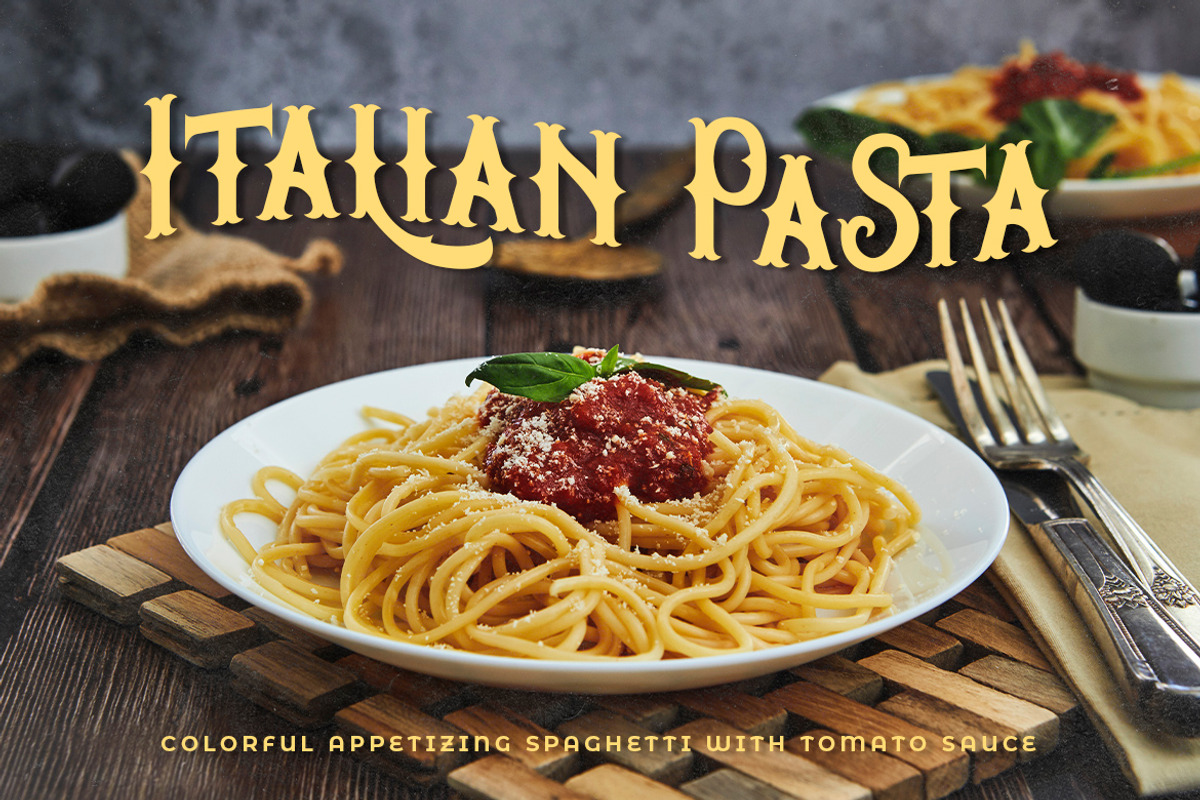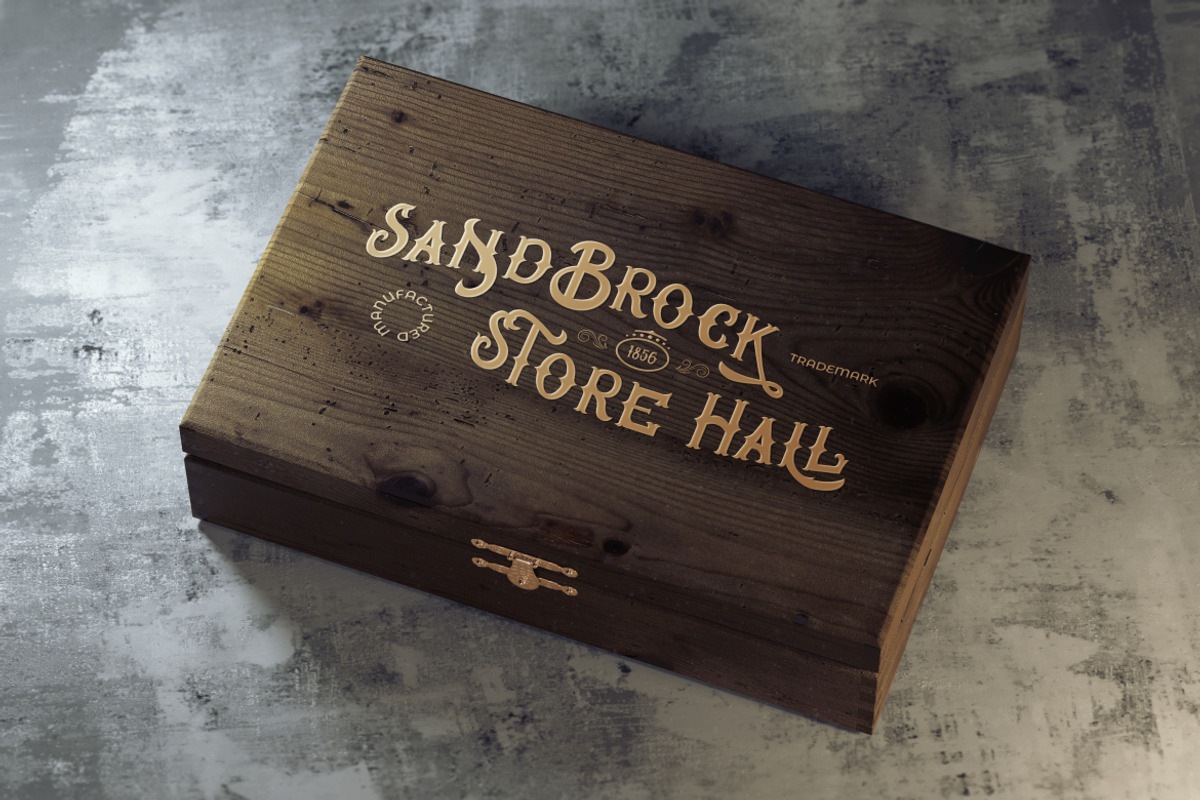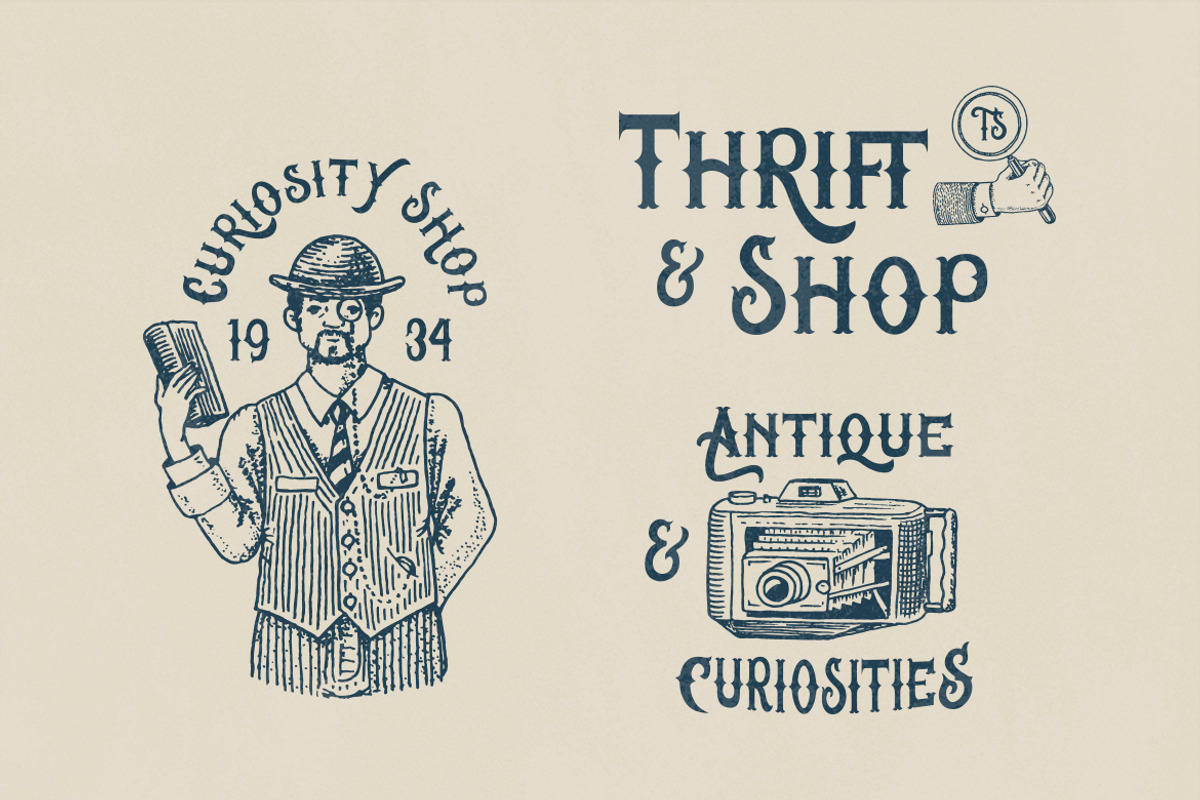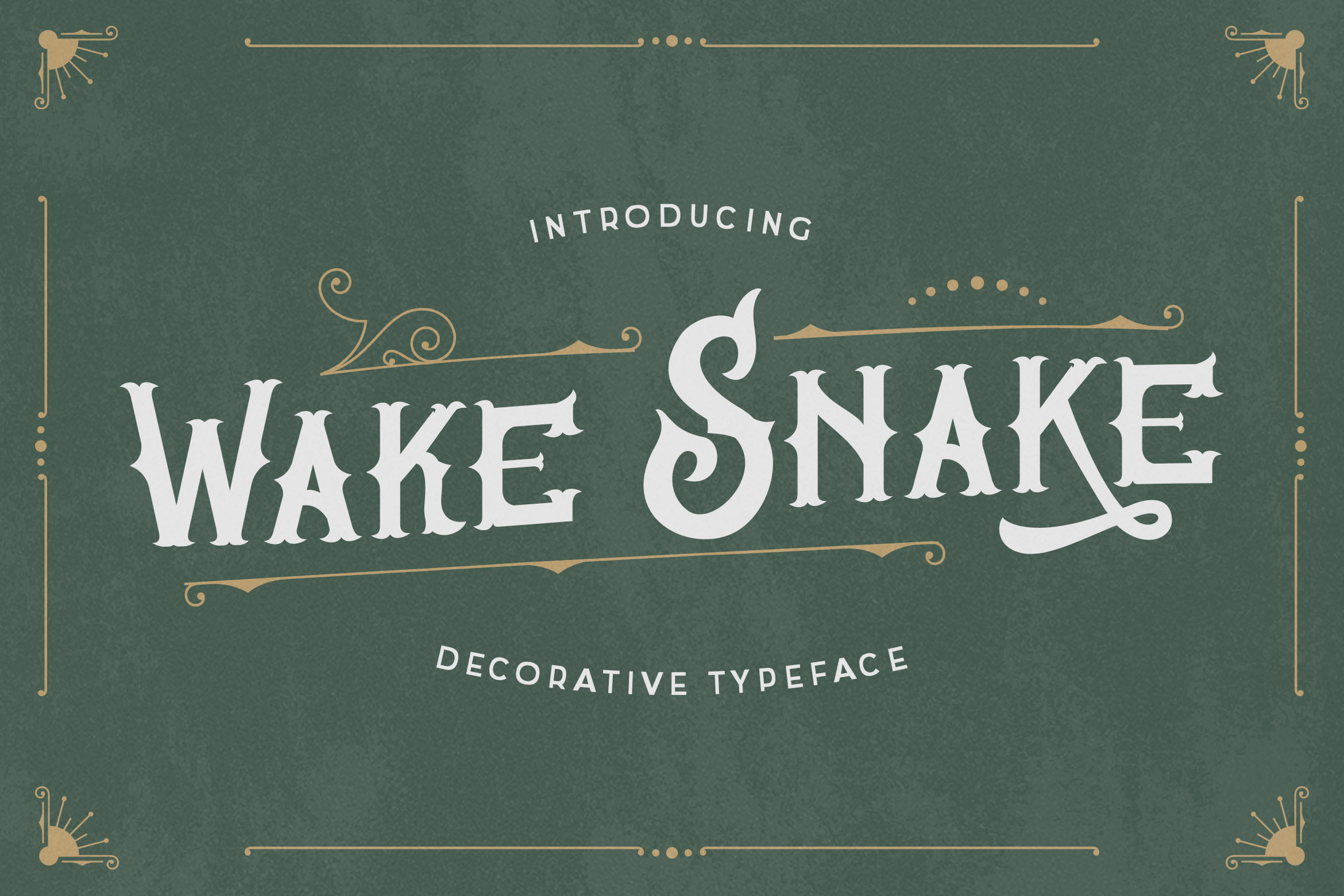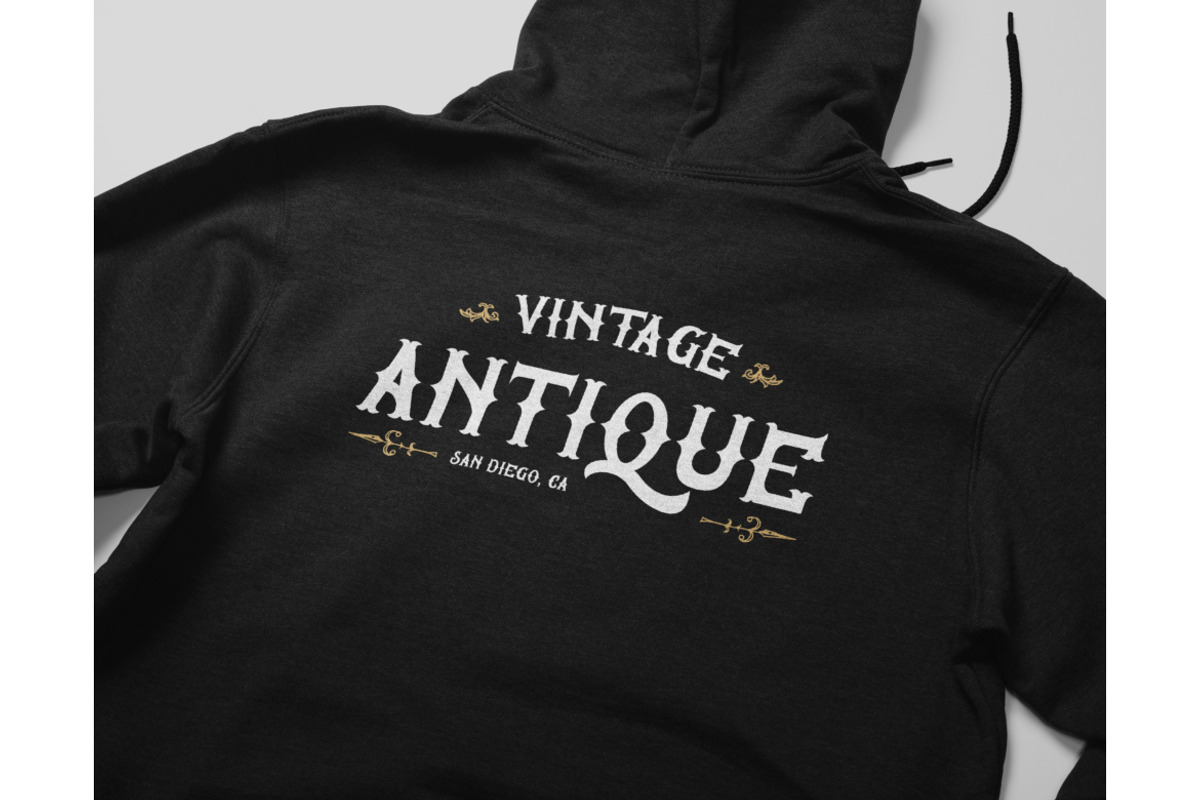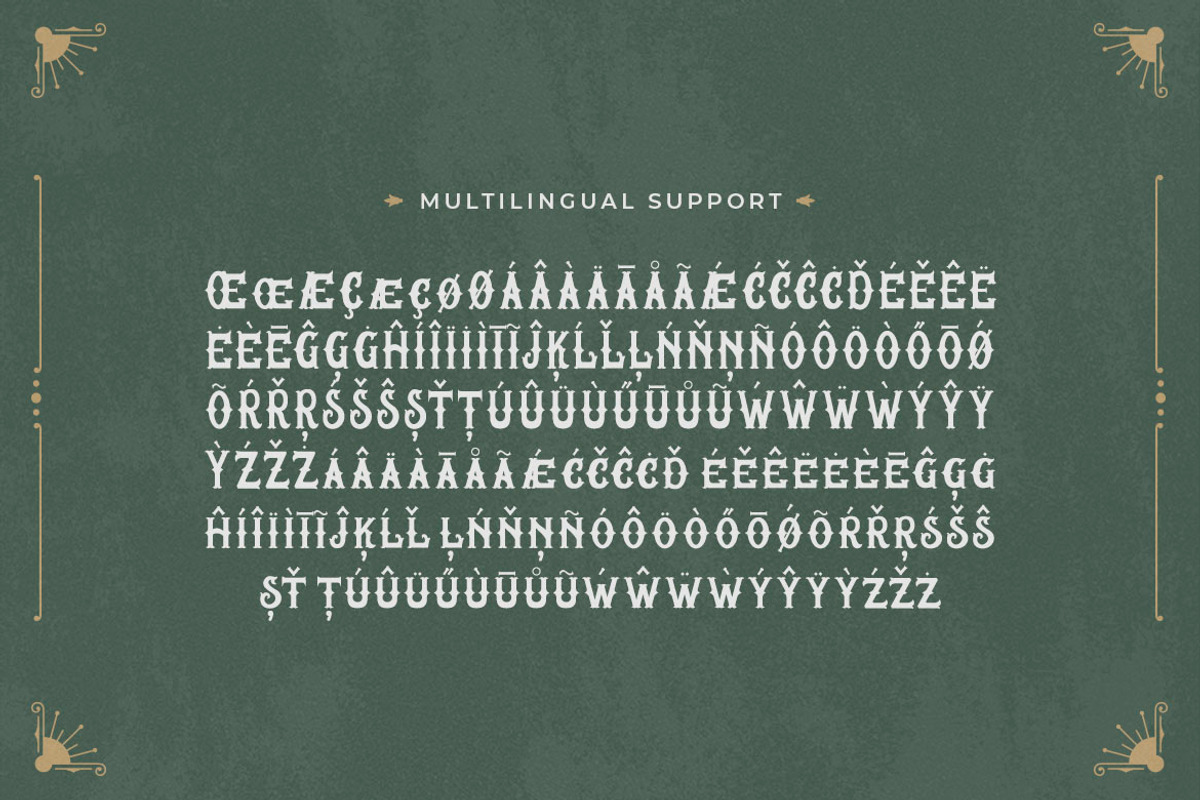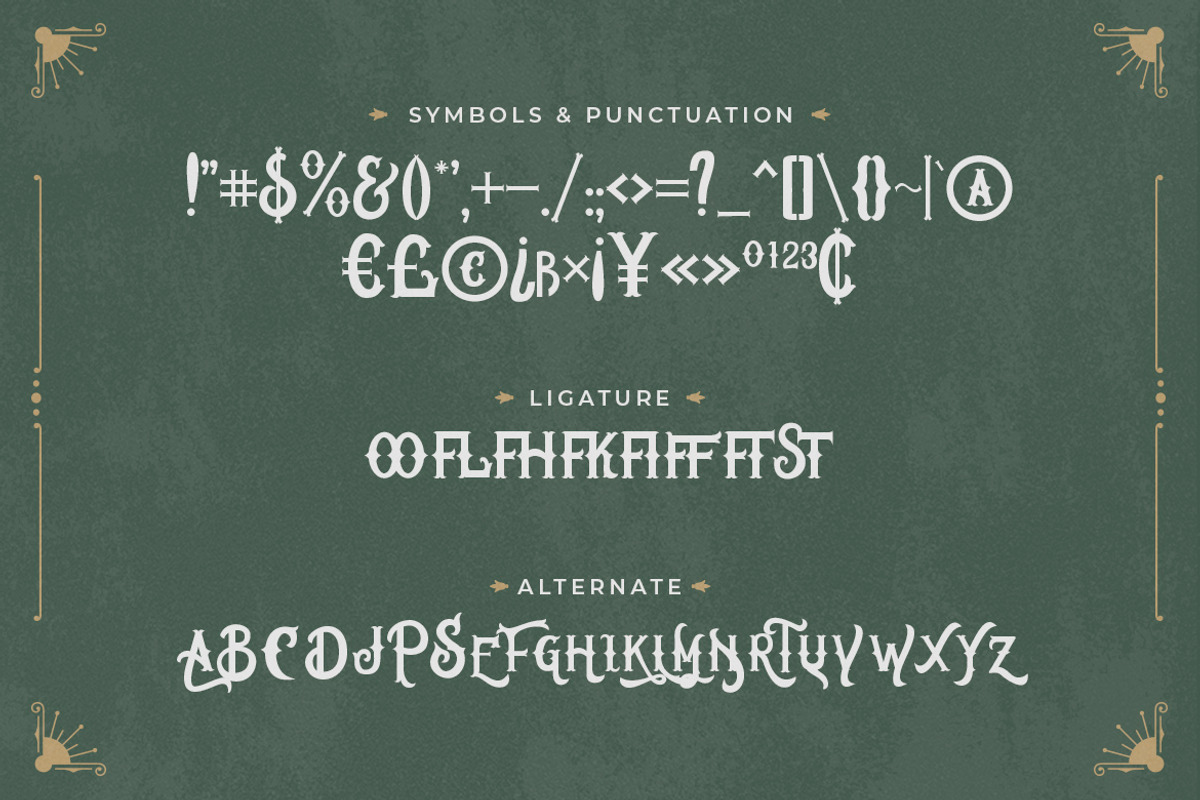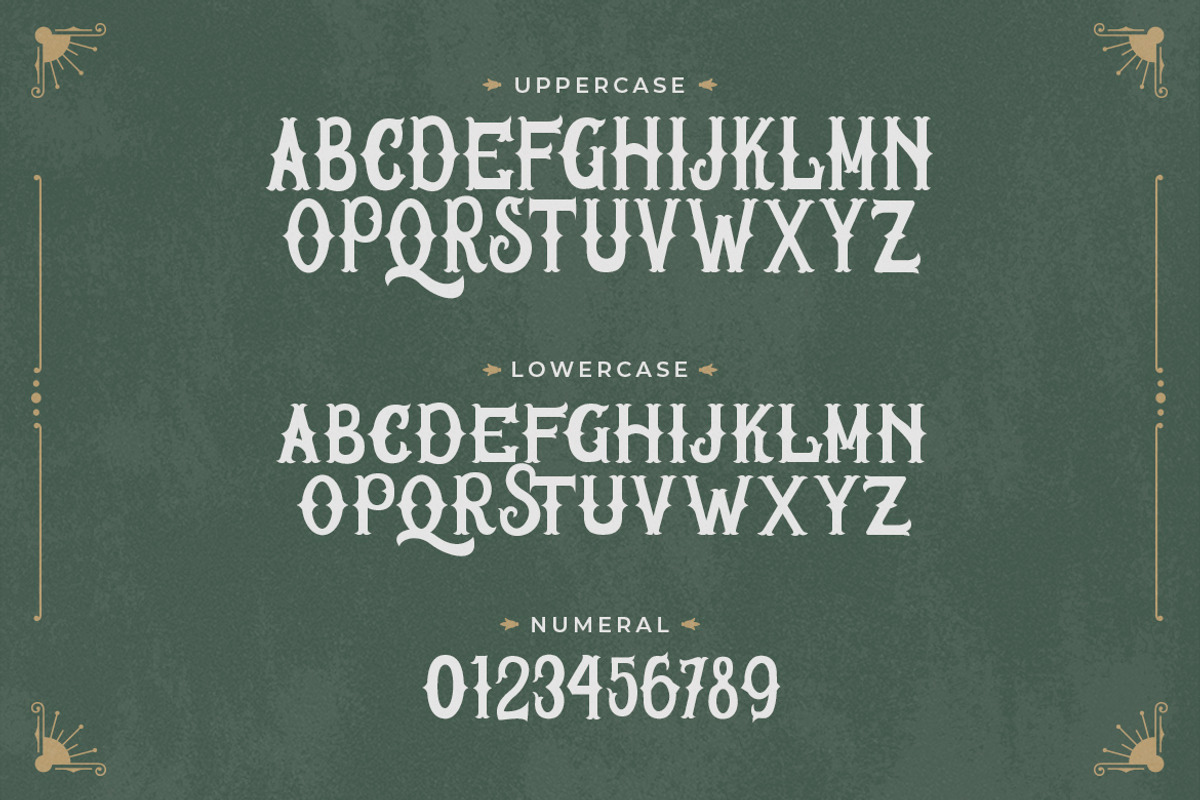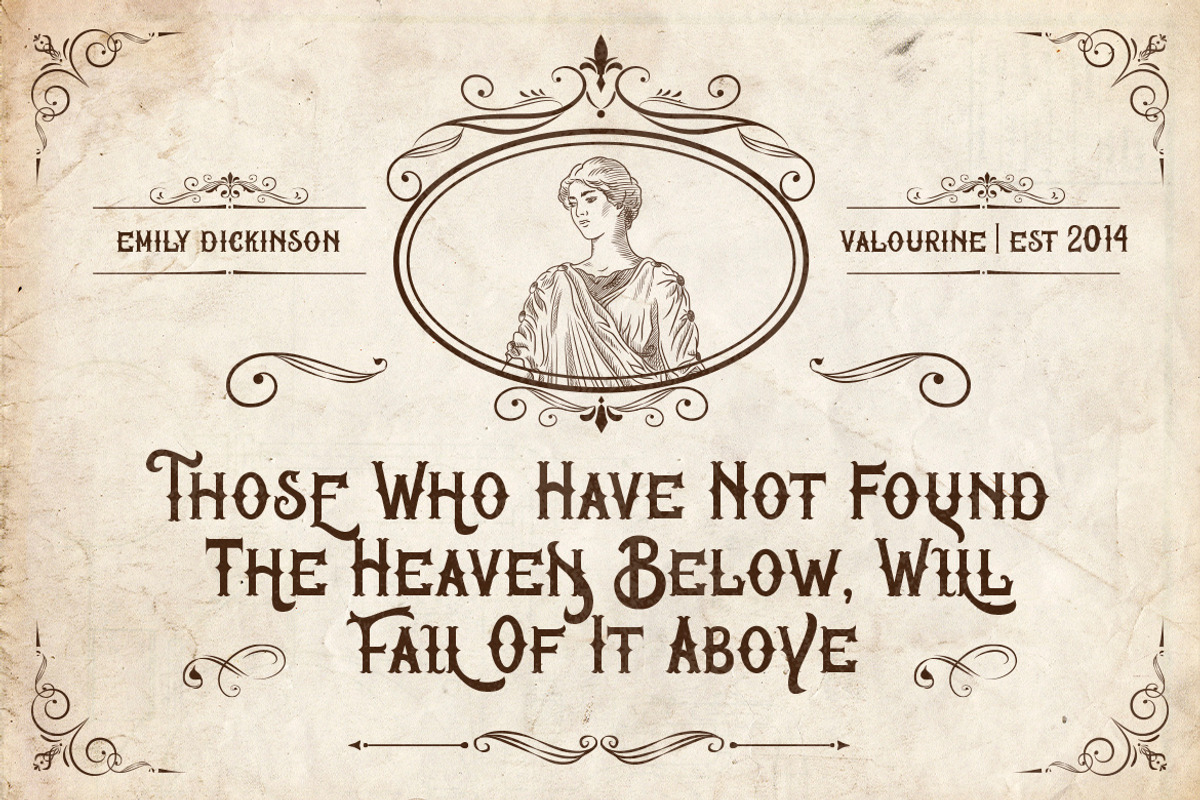
Wake Snake - Decorative Typeface
Wake Snake is a beautiful font that is capable of handling a ton of project types and designs. This vintage, Victorian inspired font is ideal for a giving your projects a classy and nostalgic feel.
- Symbols & Punctuation
- Numeral